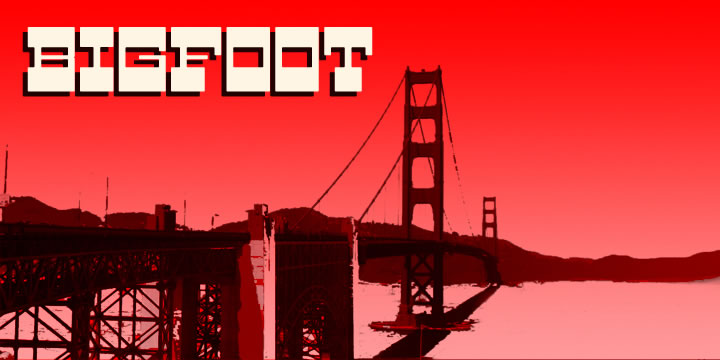
Bigfoot
from K-Type
Designed when: 2005
Contained in Category: Slab Serif
Bigfoot
Bigfoot K-Type is a whole font based on the slab capitals used by Victor Moscoso in his 1960s psychedelic rock posters. Capital A alternatives can be found at keystrokes ± and §.